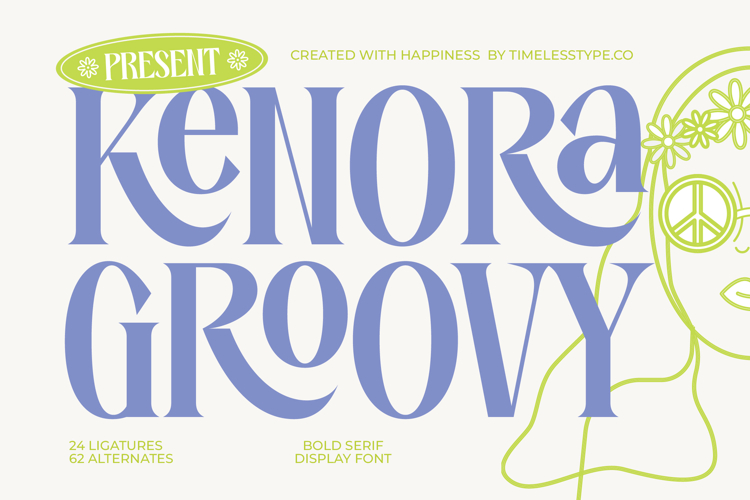
Kenora Groovy - Bold Serif Display Font
Elevate your designs with a touch of captivating retro charm and undeniable sophistication. Introducing Font Kenora Groovy - Bold Serif Display Font Serif Display, a typeface that effortlessly blends bold presence with a distinctive, playful elegance. Its unique character forms and graceful serifs create an immediate visual impact, perfect for making a memorable statement that captures attention.
Discover unparalleled design flexibility with Font Kenora Groovy - Bold Serif Display Font Serif Display. Crafted with meticulous attention to detail, this font boasts a rich array of 24 ligatures and 62 alternates, allowing for truly customized and expressive typography. Its striking high-contrast serifs and flowing curves are ideal for luxury branding, elegant packaging, impactful editorial spreads, and captivating headlines that demand attention.
Expand your creative reach across any border with absolute confidence. With its extensive multilingual support, Font Kenora Groovy - Bold Serif Display Font Serif Display adapts seamlessly across global markets, making it incredibly versatile for international projects. This ensures your message maintains its powerful aesthetic and readability, regardless of the language or audience.
Transform your next project into a masterpiece of typographic art. Font Kenora Groovy - Bold Serif Display Font Serif Display is your ultimate tool for creating designs that are both timeless and strikingly contemporary. Invest in this exceptional display font to convey professionalism, elegance, and a touch of vintage flair that truly sets your brand apart.